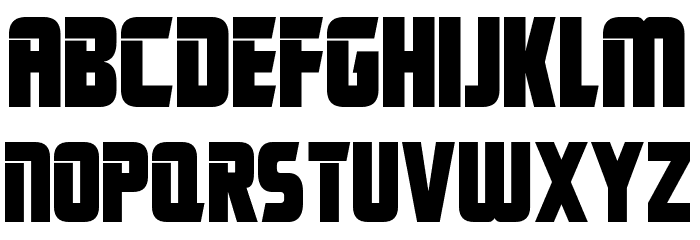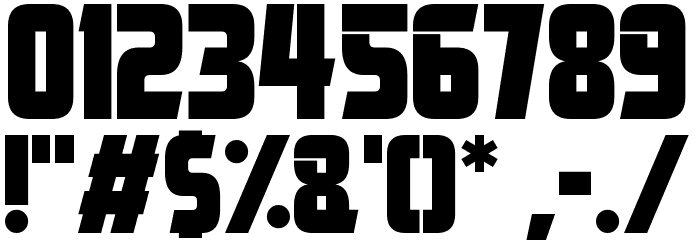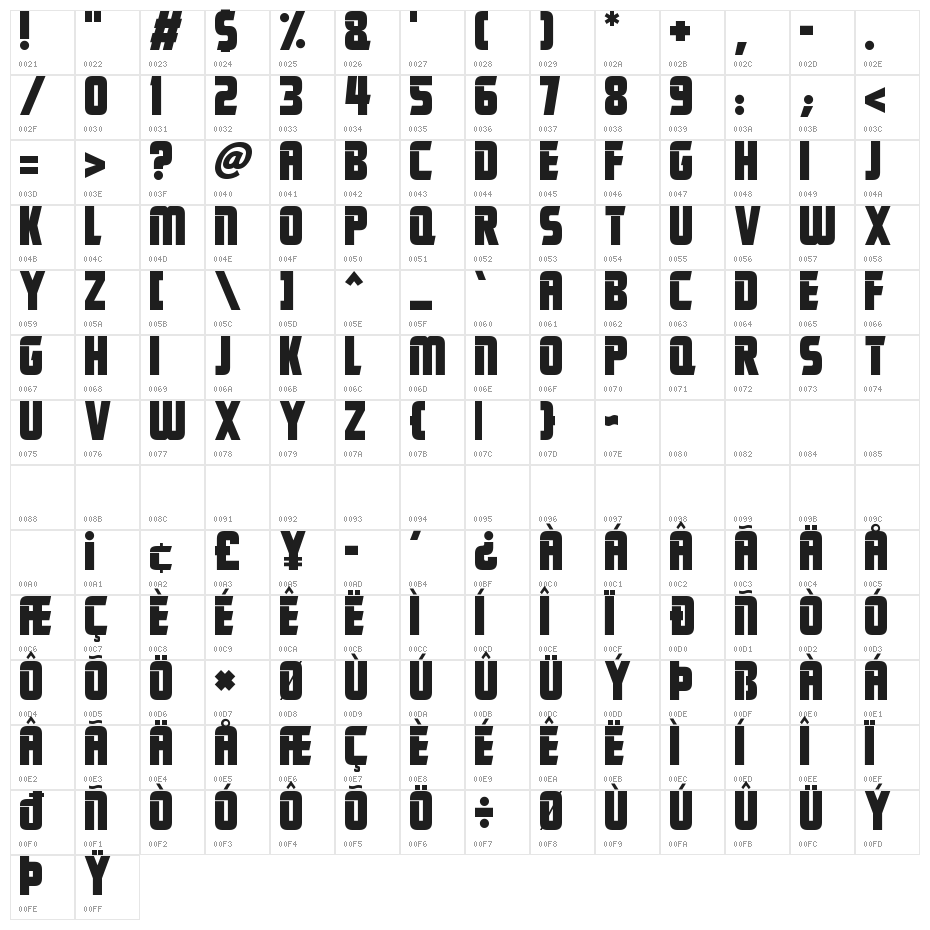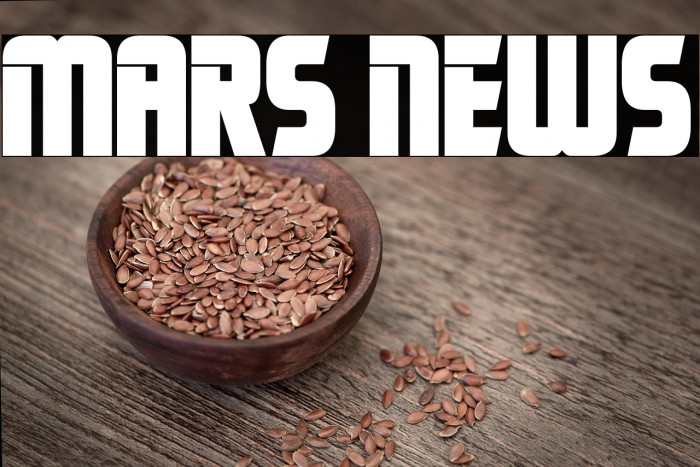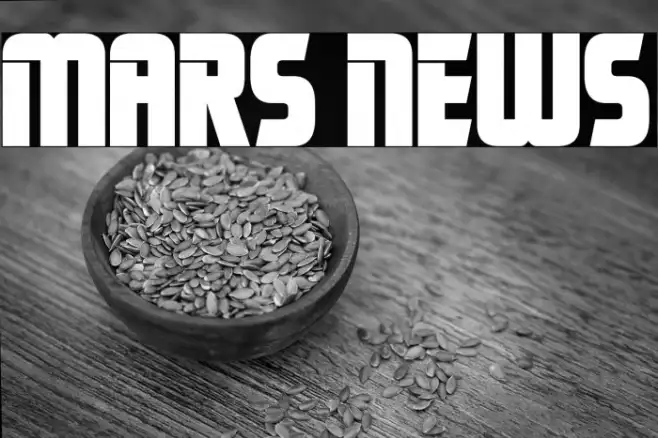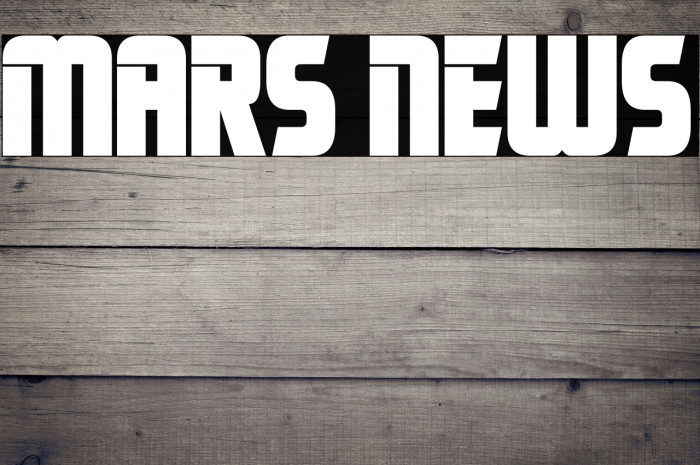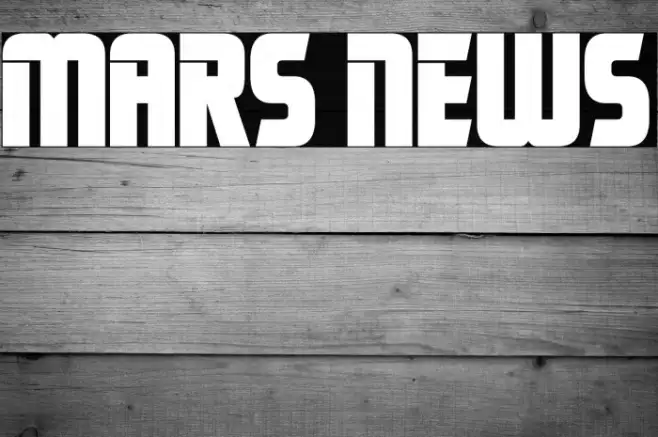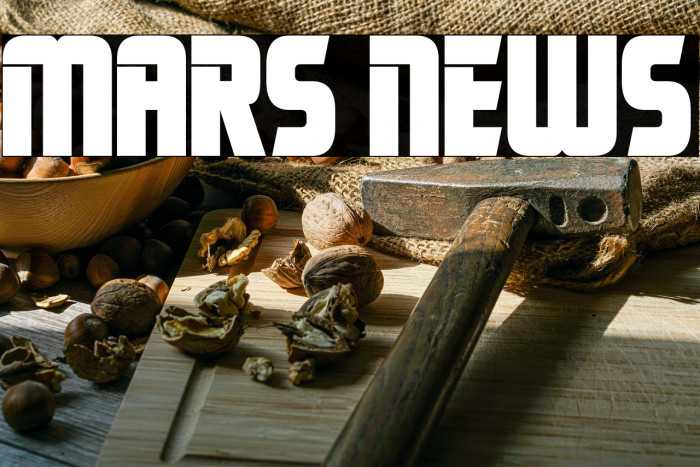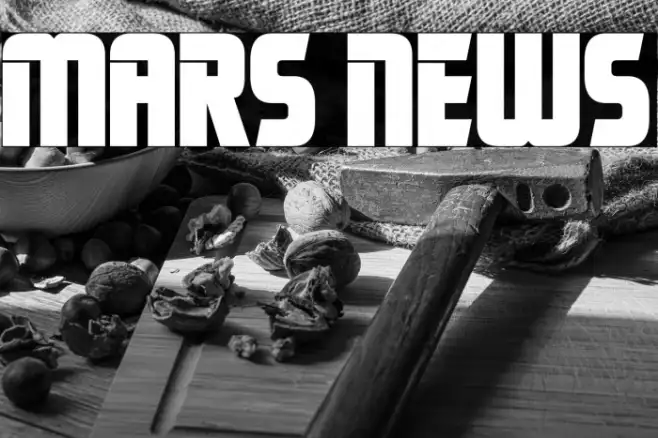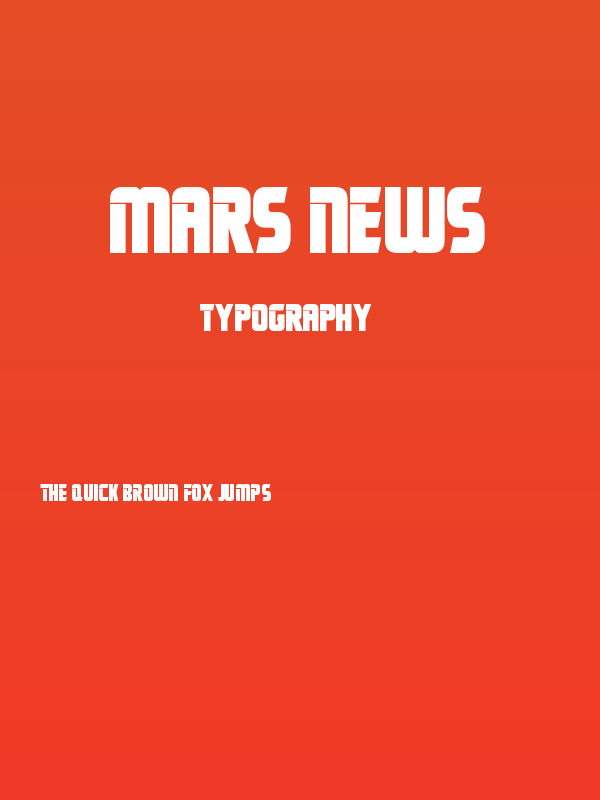
Mars News Font
This bold and impactful font features a strong geometric design with thick, uniform strokes and sharp angles. The uppercase letters are particularly striking, with a blocky appearance that commands attention. The lowercase letters maintain the same boldness, ensuring consistency throughout the typeface. Numbers and special characters are equally robust, making this font ideal for creating a cohesive and powerful visual statement. The overall style is modern and assertive, suitable for projects that require a strong and confident typographic presence.
A bold, geometric font with thick strokes and sharp angles, perfect for impactful designs.
- Proposed Projects: Ideal for headlines, posters, branding, and any design requiring a strong visual impact.